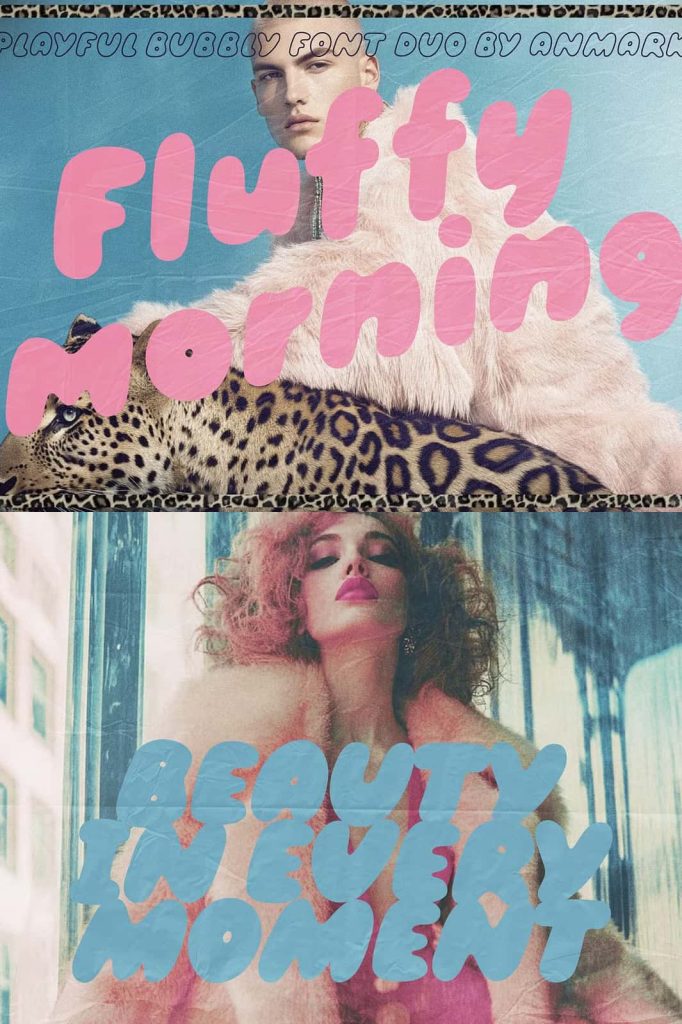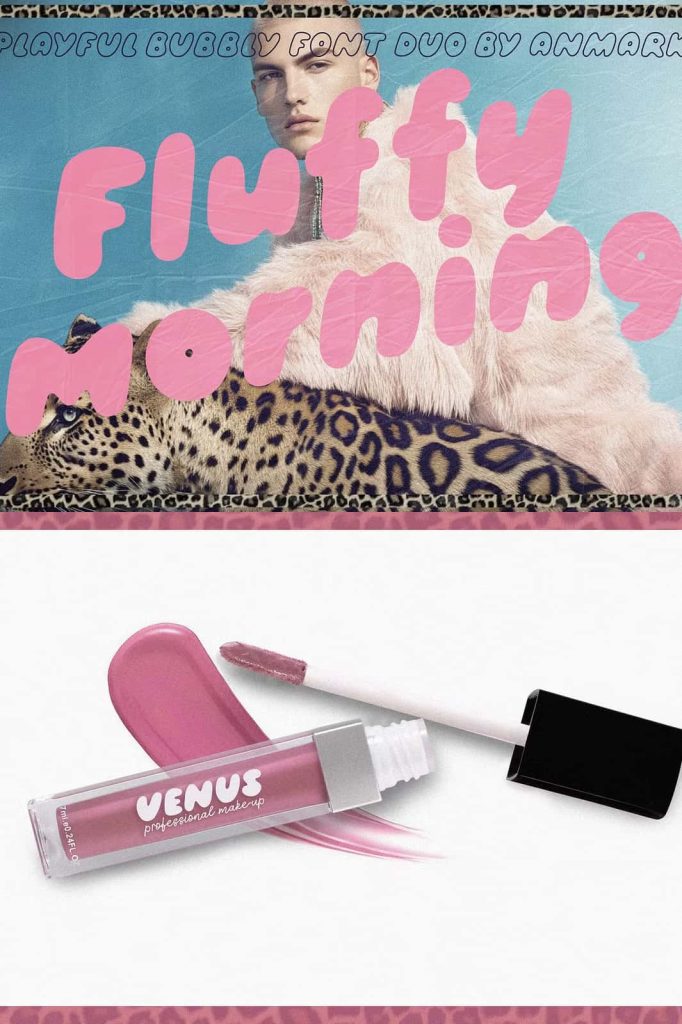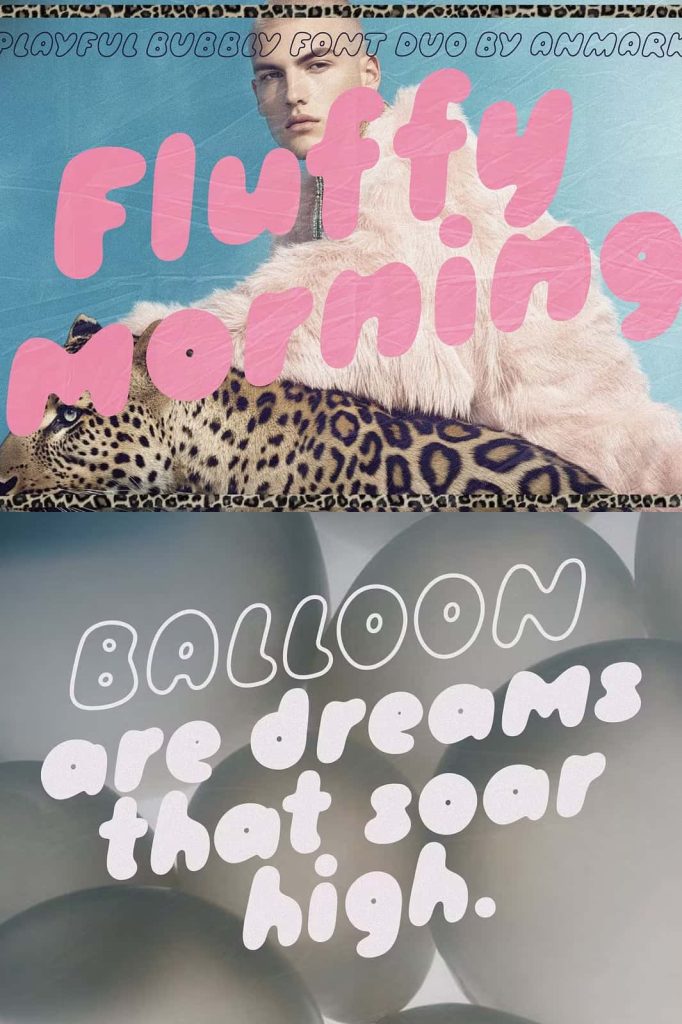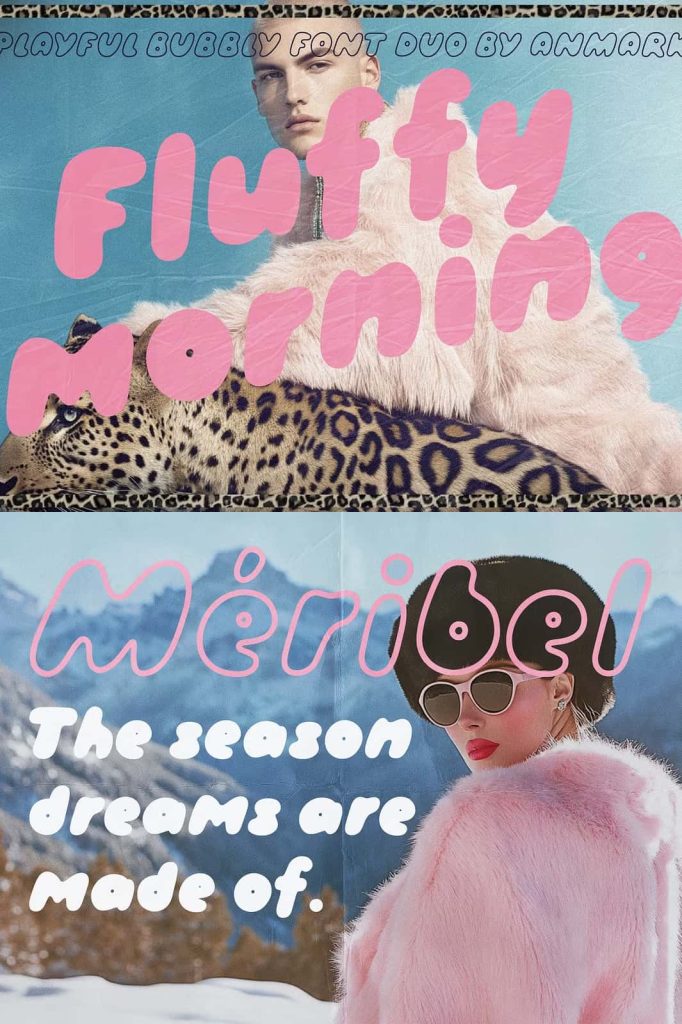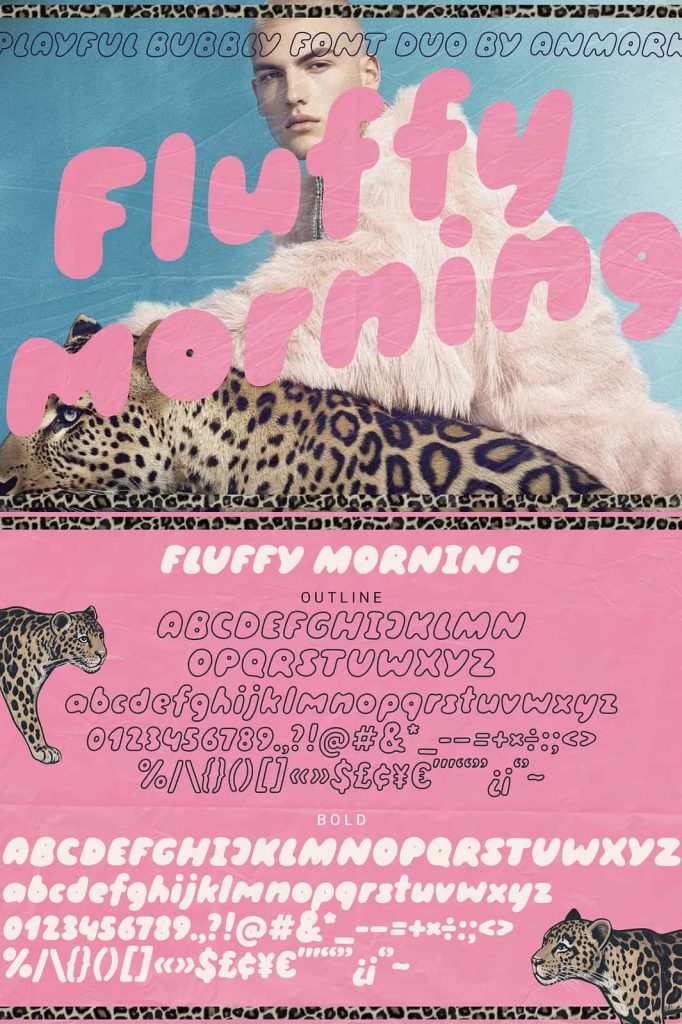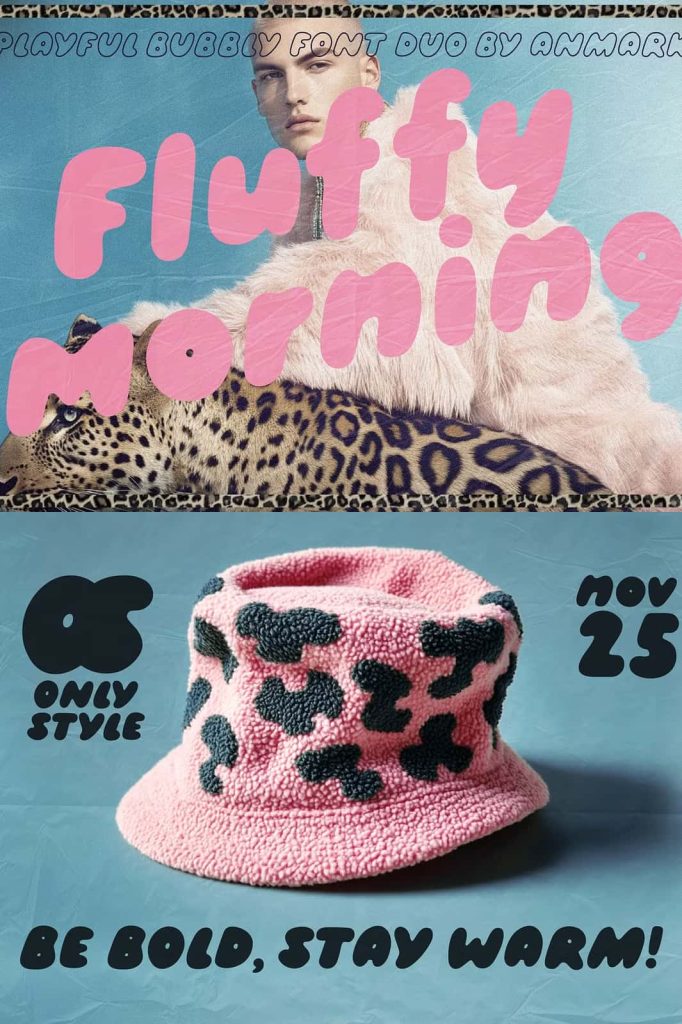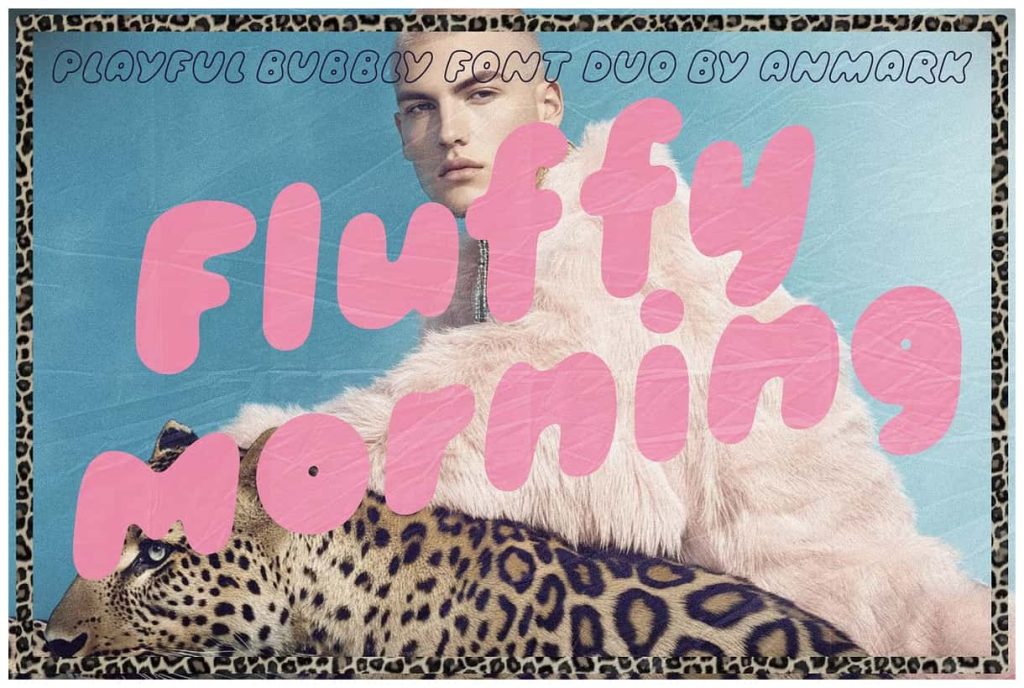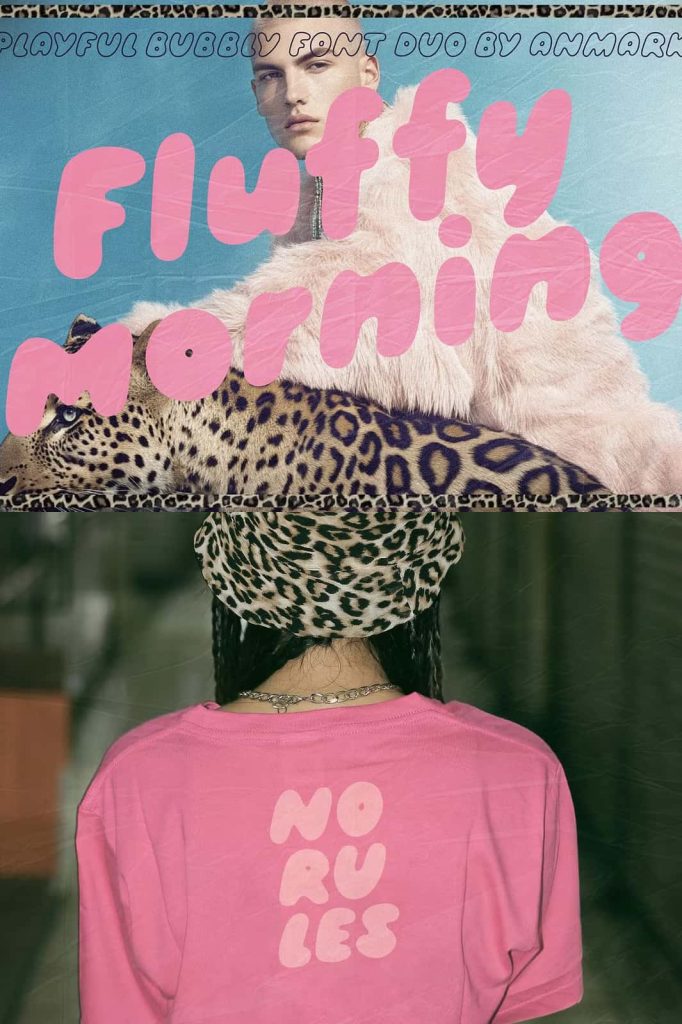
Fluffy Morning – A Warm and Playful Bubble Font Duo
Fluffy Morning is a charming and expressive bubble font duo designed to bring warmth, comfort, and personality into your creative projects. Inspired by soft mornings and cheerful moods, this rounded typeface creates a friendly and inviting atmosphere in every design. With its smooth curves and playful character, Fluffy Morning helps designers communicate joy, creativity, and approachability in a clear and visually appealing way.
A Font Duo That Adds Character and Versatility
Fluffy Morning stands out as a font duo, offering two complementary styles that work beautifully together or independently. The Bold style delivers strong visual impact with thick, rounded letterforms that immediately grab attention. The Outline style provides a lighter, more flexible option that adds depth and contrast without overwhelming the layout. Together, these styles give designers greater freedom to experiment and create dynamic typographic compositions.
This dual-style approach makes Fluffy Morning highly versatile. Designers can layer the Bold and Outline styles to create eye-catching headlines, playful logos, and engaging titles. The font duo structure allows you to build hierarchy within your designs while maintaining a consistent and cohesive visual identity.
Designed to Create a Cozy and Friendly Feel
Every letter in Fluffy Morning has been carefully shaped with rounded edges and balanced proportions to convey a sense of comfort and warmth. The soft bubble-like forms make text feel approachable and fun, which is ideal for projects that aim to connect emotionally with audiences. This font encourages positive interaction and helps your message feel welcoming rather than formal or distant.
Fluffy Morning works especially well for brands and creatives who want to express joy, creativity, and friendliness. It is a strong choice for lifestyle brands, children’s products, creative entrepreneurs, and content creators who want their designs to feel lighthearted and engaging. The font’s cozy aesthetic makes it easy to build trust and familiarity with viewers.
Perfect for Logos, Covers, and Creative Branding
Fluffy Morning performs exceptionally well in logo design, where clarity and personality are essential. Its bold and rounded shapes ensure strong readability, even at smaller sizes, while still maintaining a distinctive and memorable look. Whether you are designing a brand logo, a product label, or a creative badge, this bubble font duo adds instant charm and recognition.
For covers and blog headers, Fluffy Morning creates strong visual appeal and helps content stand out. The font’s playful nature draws readers in and encourages them to explore further. By using the Bold style for headlines and the Outline style for accents or subheadings, designers can build attractive and well-structured layouts with ease.
Ideal for Invitations and Social Media Graphics
Fluffy Morning shines in invitation design, where warmth and personality play a crucial role. It works beautifully for birthday invitations, casual events, celebrations, and creative announcements. The rounded letterforms create a friendly tone that feels personal and joyful, making your invitations more engaging and memorable.
On social media, Fluffy Morning helps content stand out in crowded feeds. Its playful bubble style instantly captures attention and makes messages easy to read at a glance. Designers can use it for posts, stories, highlights, and promotional graphics, ensuring a consistent and lively visual presence across platforms.
A Reliable Typeface for Playful and Modern Designs
Fluffy Morning is more than just a decorative font; it is a practical and adaptable design tool. The combination of Bold and Outline styles allows designers to create contrast, emphasis, and rhythm without relying on multiple typefaces. This simplicity helps streamline the design process while still delivering creative results.
Whether you are working on logos, covers, blogs, invitations, or social media graphics, Fluffy Morning provides the flexibility and charm needed to make your designs feel warm, modern, and full of personality. With its cozy aesthetic and playful energy, this bubble font duo empowers you to create designs that connect, delight, and leave a lasting impression.